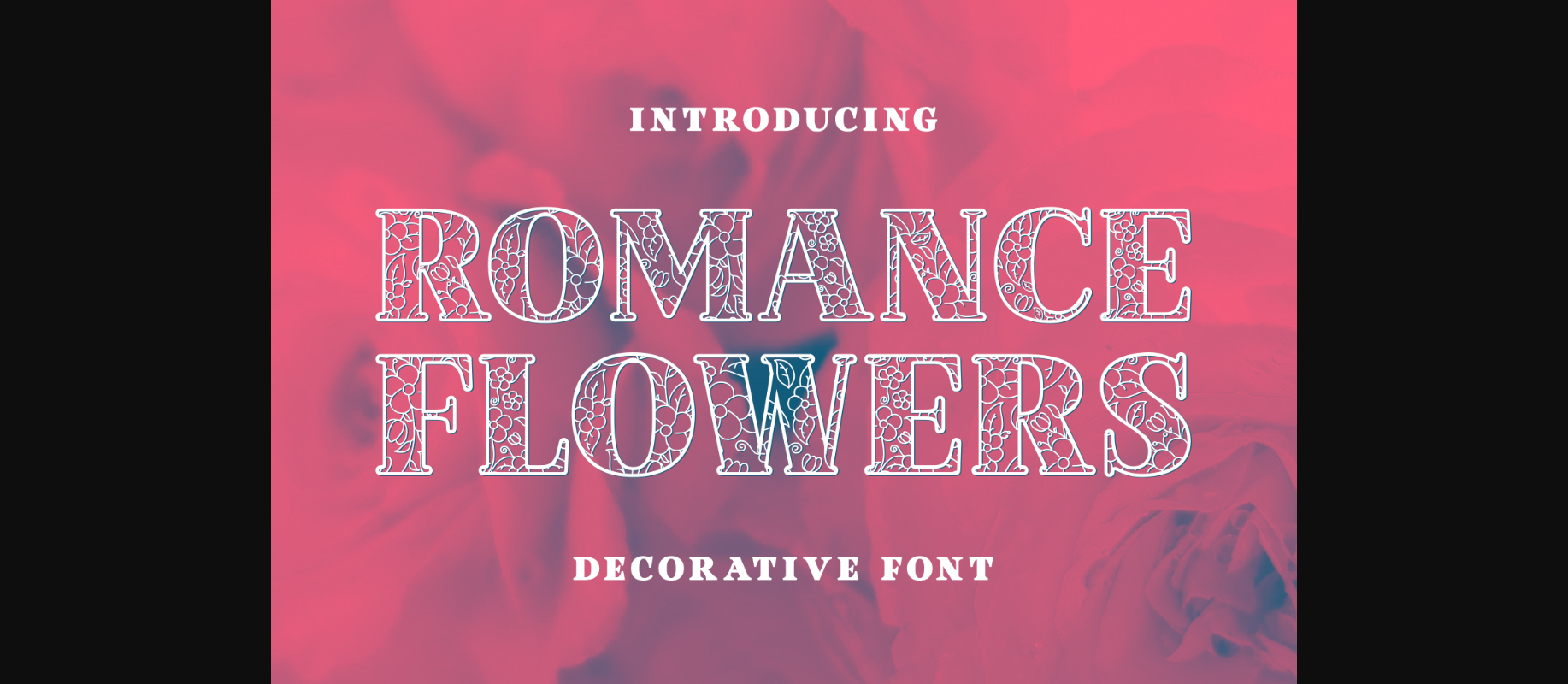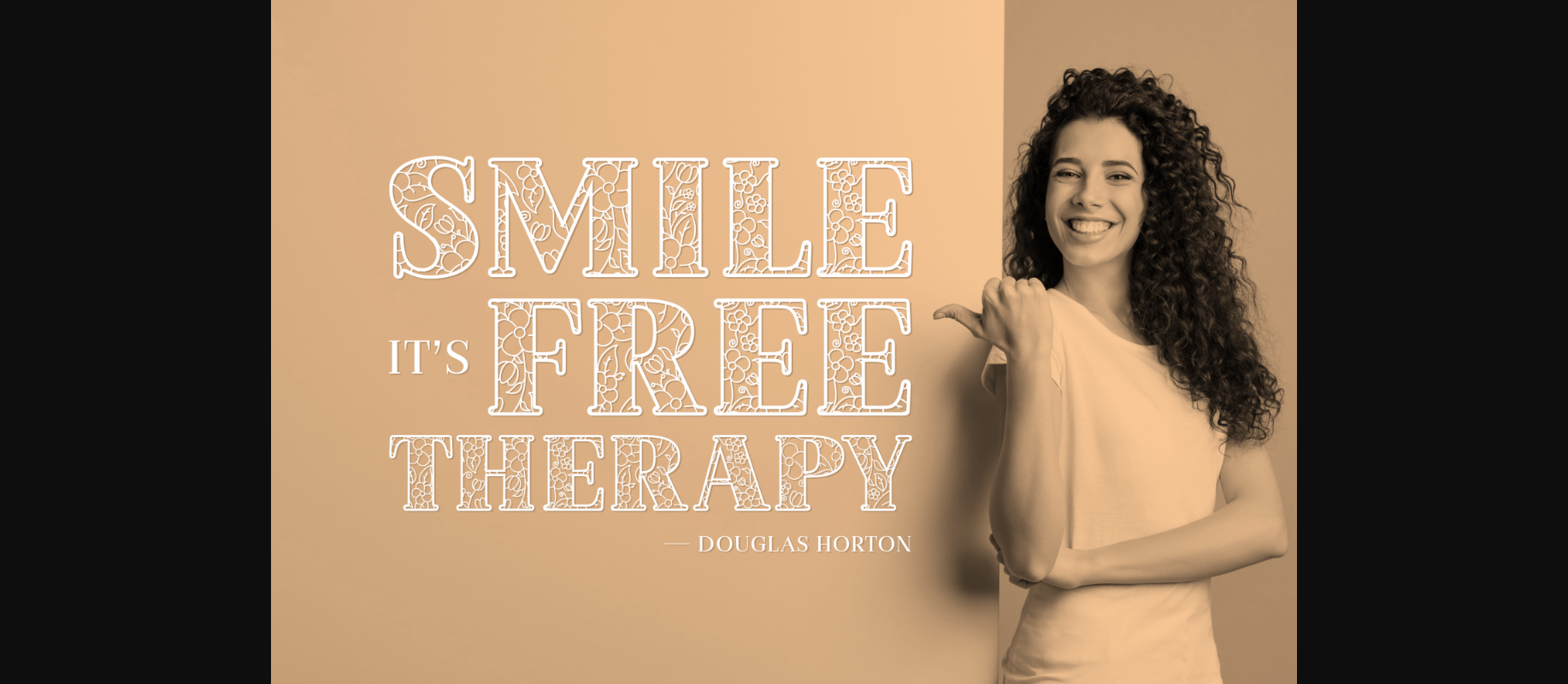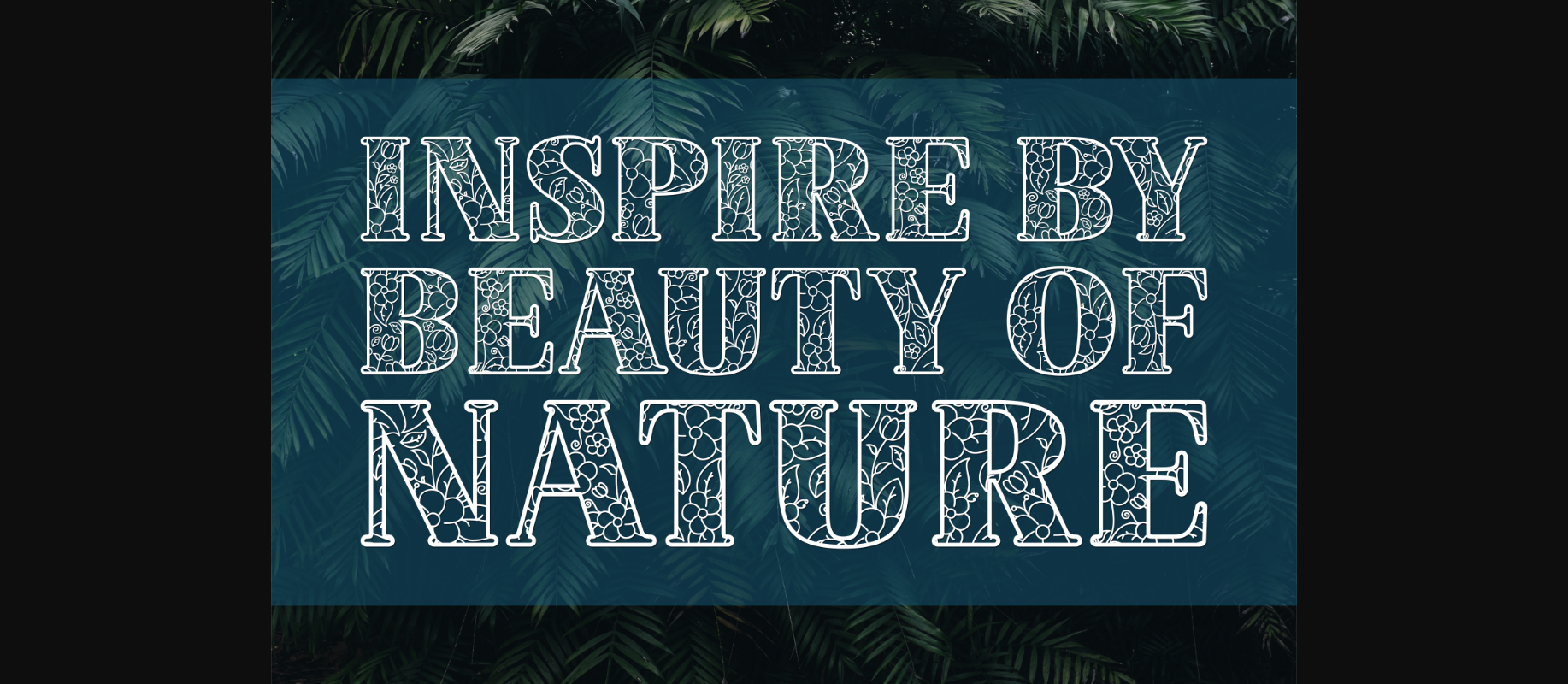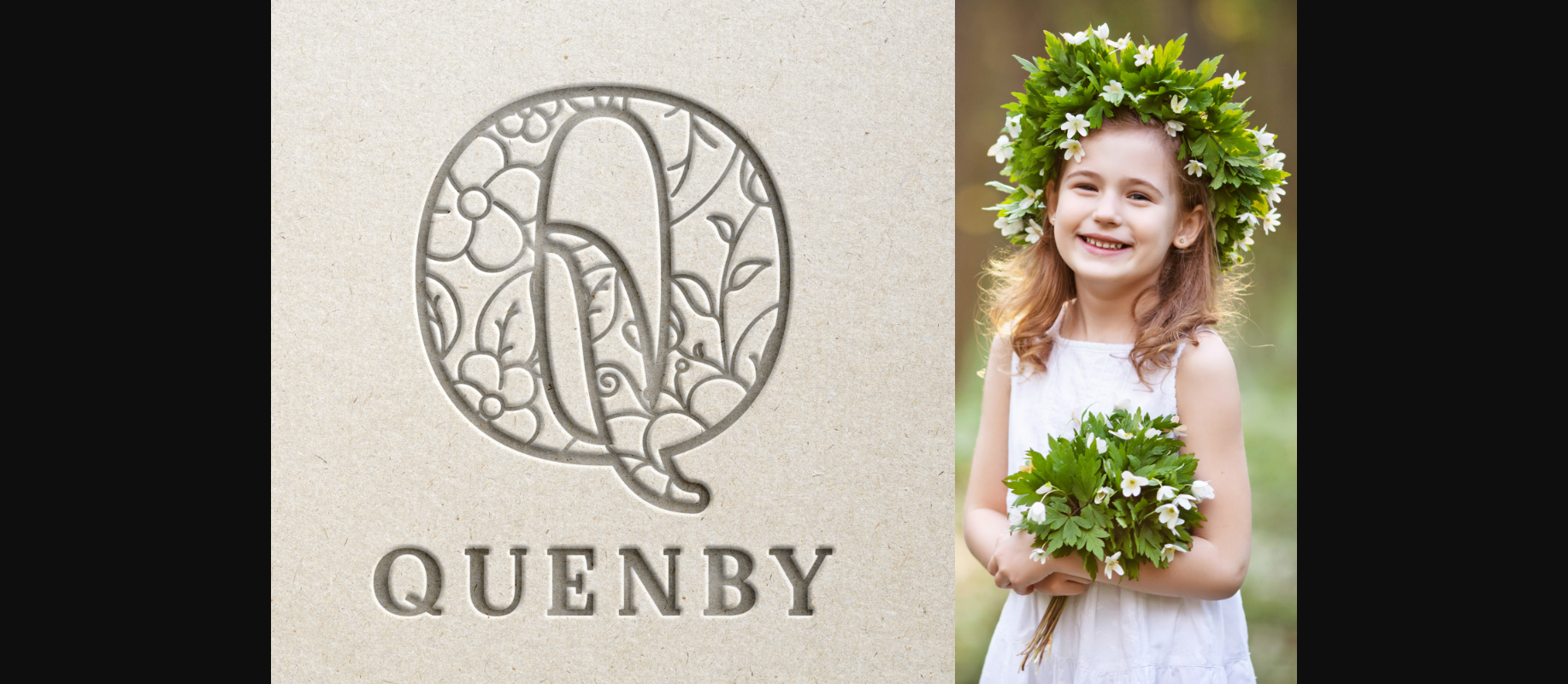
About Romance Flowers Font
Romance Flowers is an elegant and decorative font that is embellished with a beautiful flower pattern in each character. This font has serif elements and will stand out in your designs such as social media posts, presentations, and flyers.